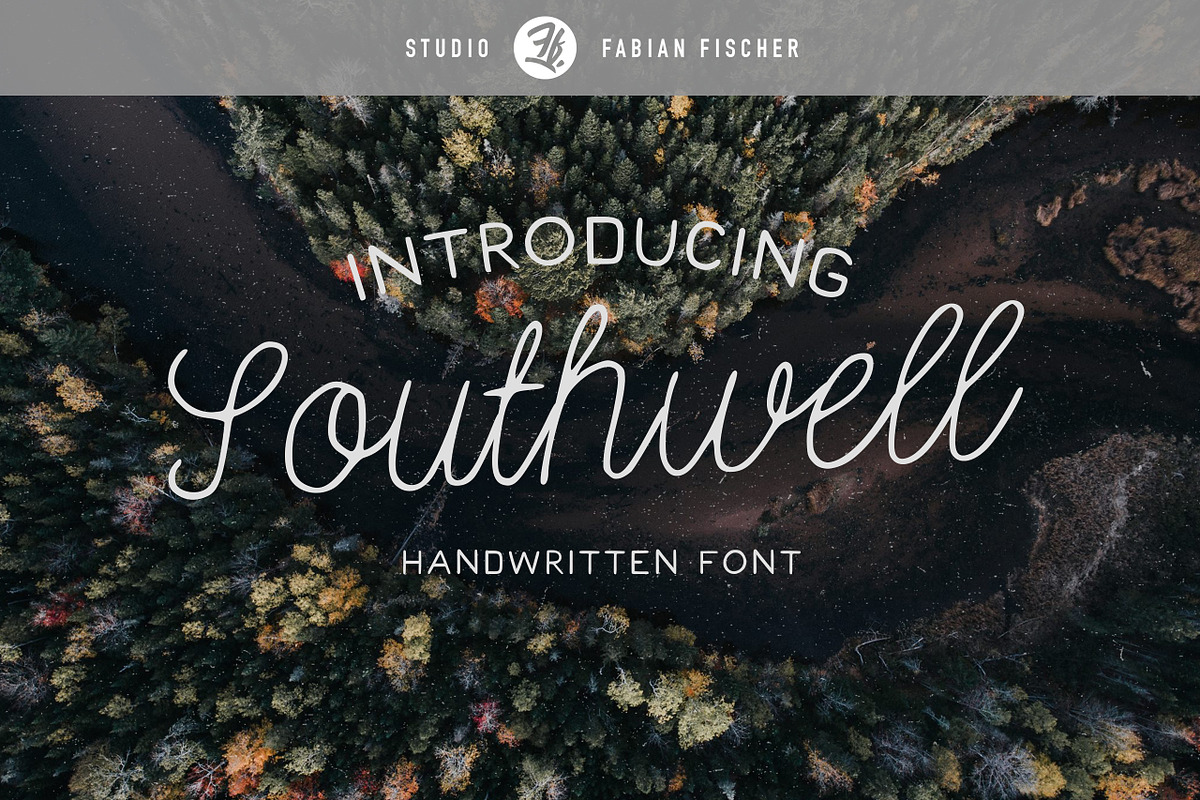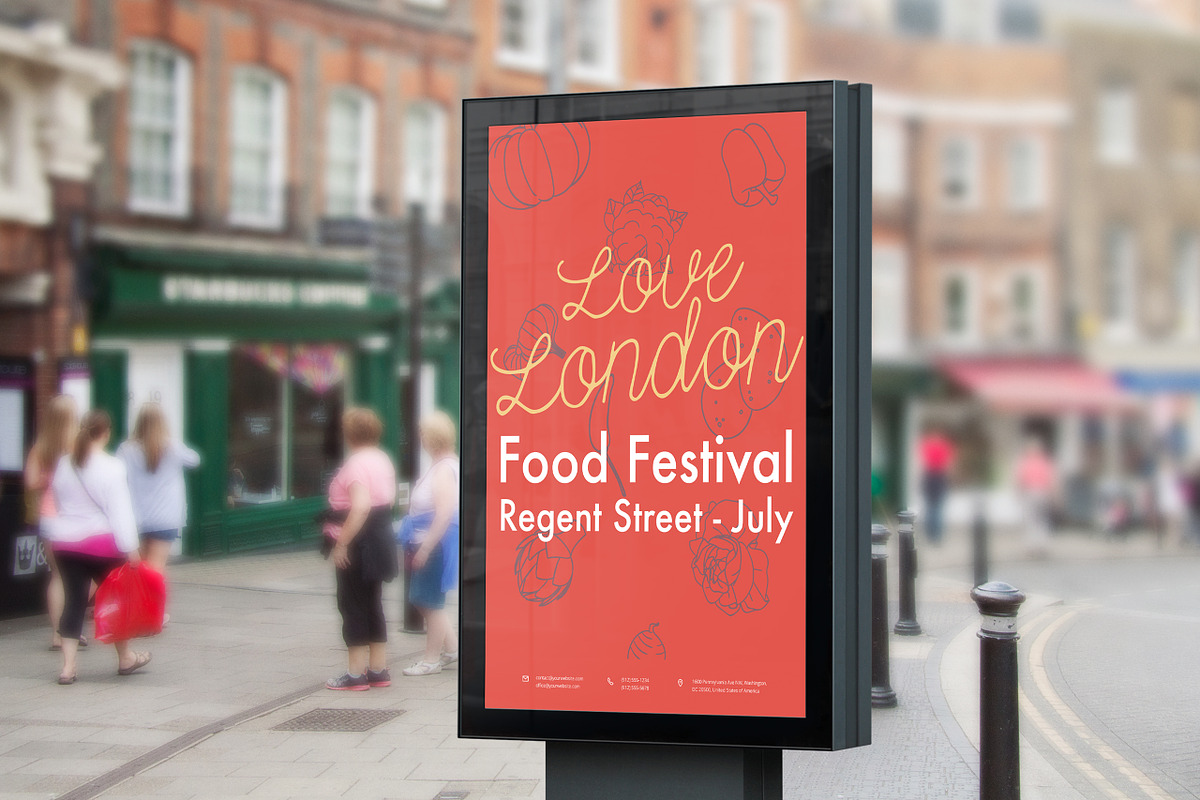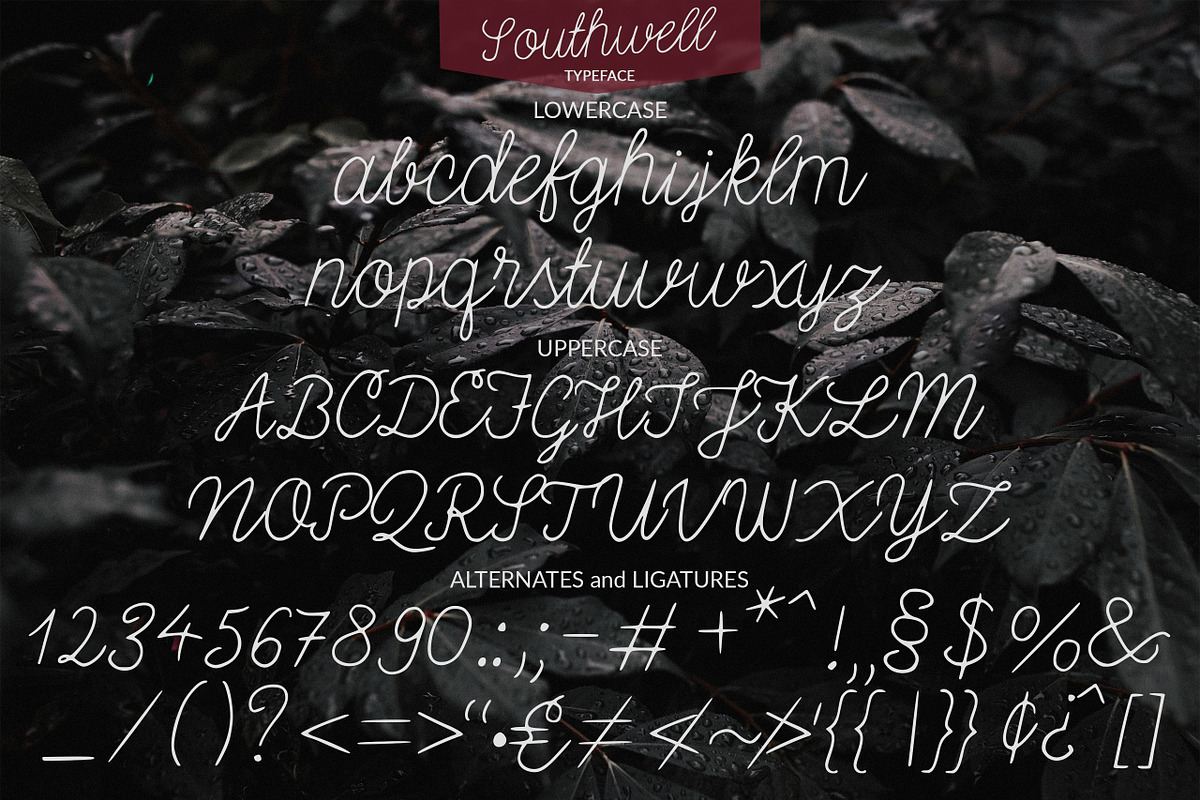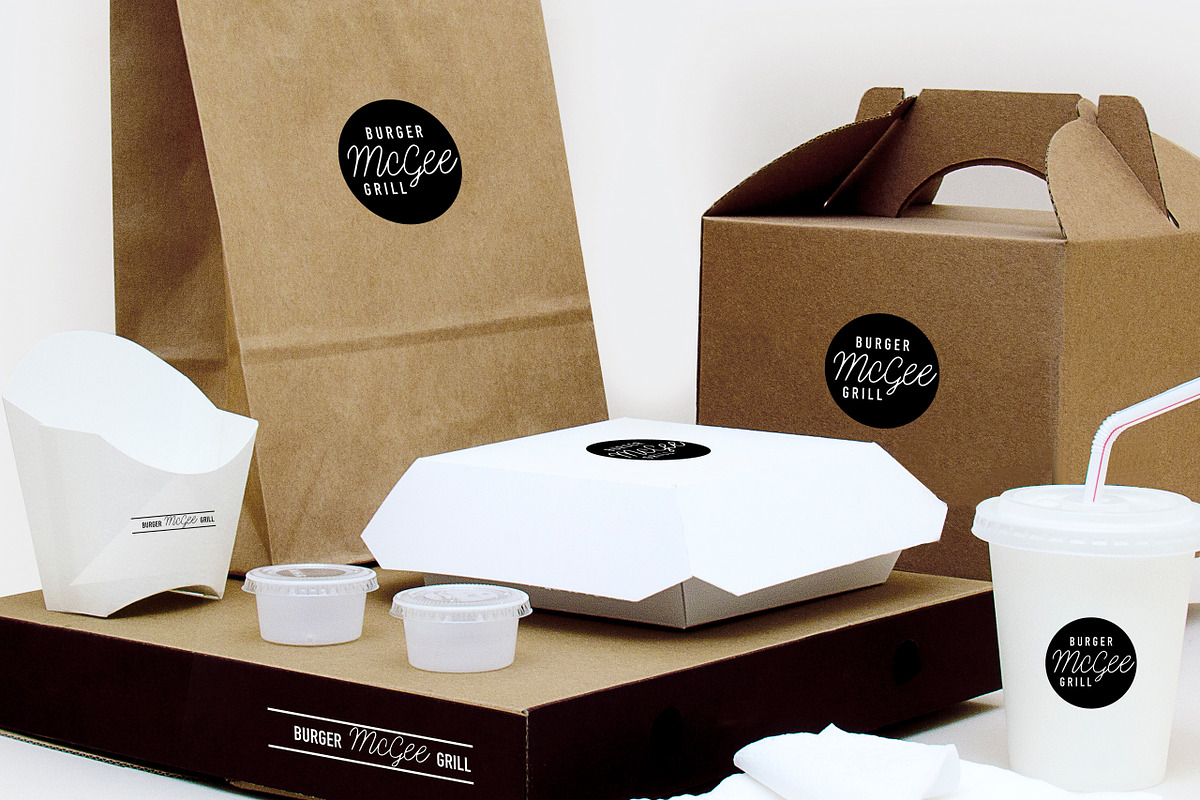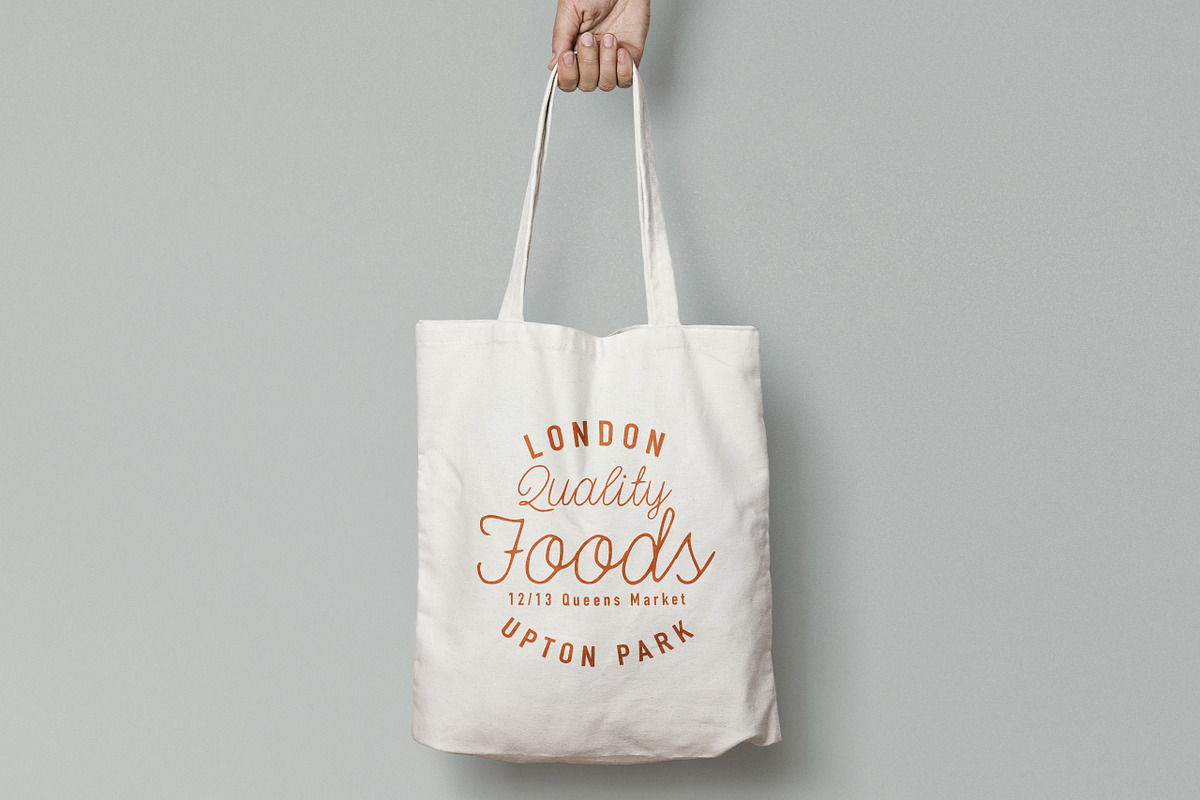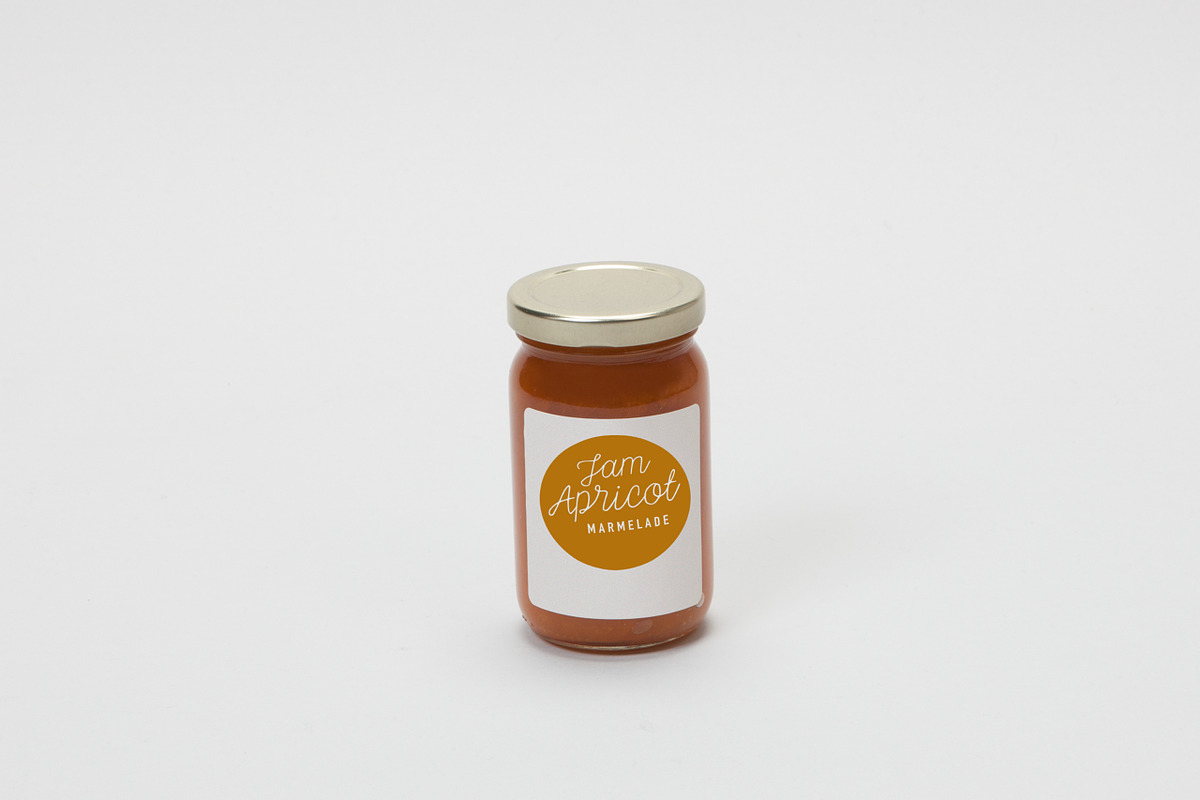
Southwell - Handmade Font
Southwell - Handmade Font by Studio FabianFischer is a font selected for branding, posters, packaging, typography.
- This typeface includes all uppercase and lowercase letters.
Southwell - Handmade Font by Studio FabianFischer fits naturally into Branding, posters, packaging, typography.